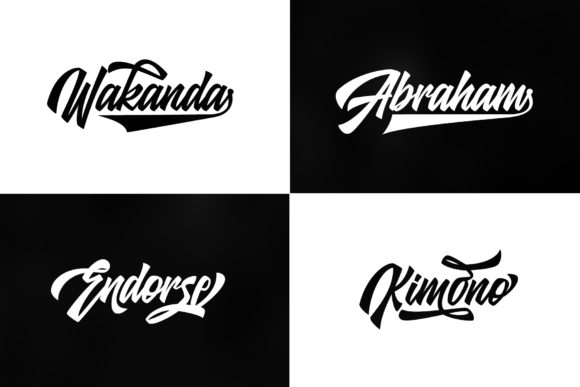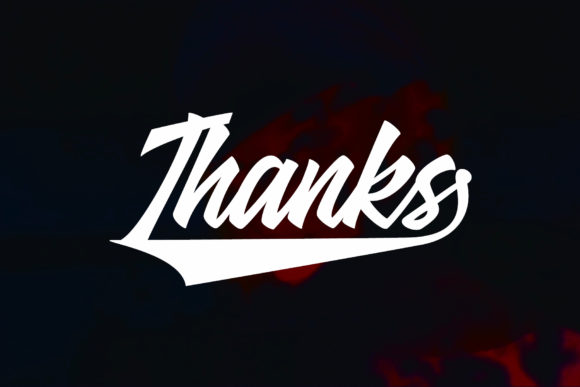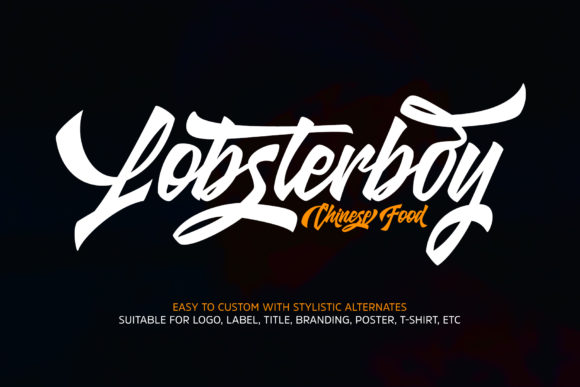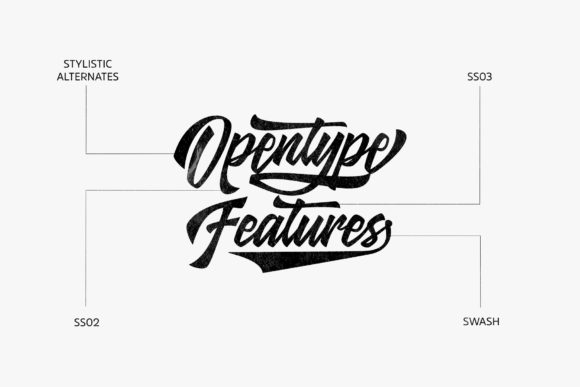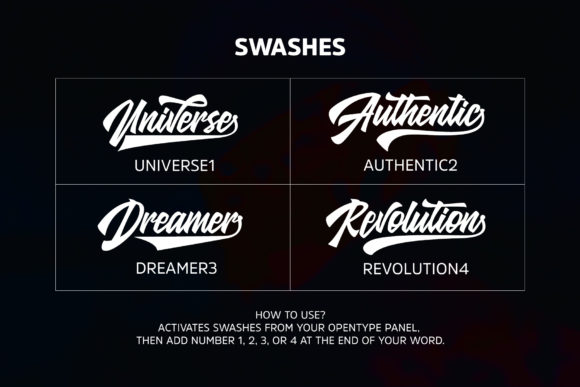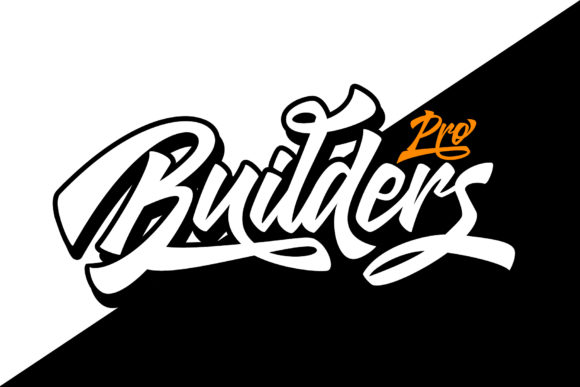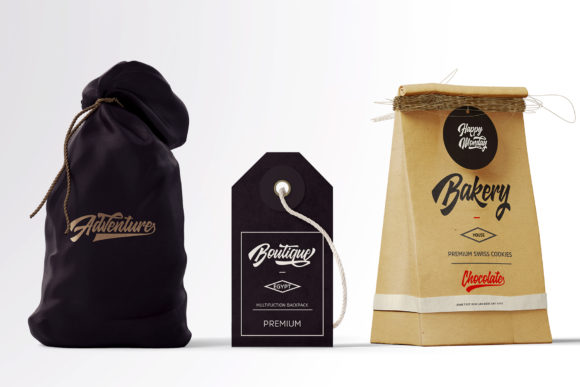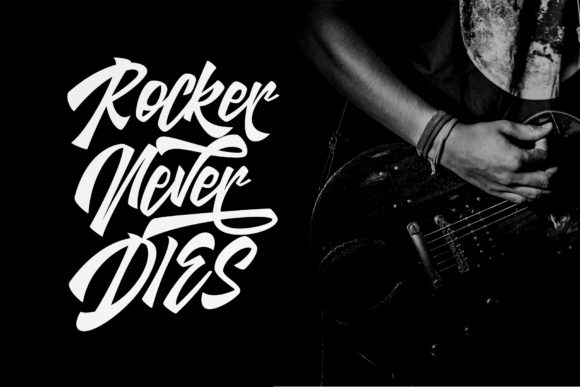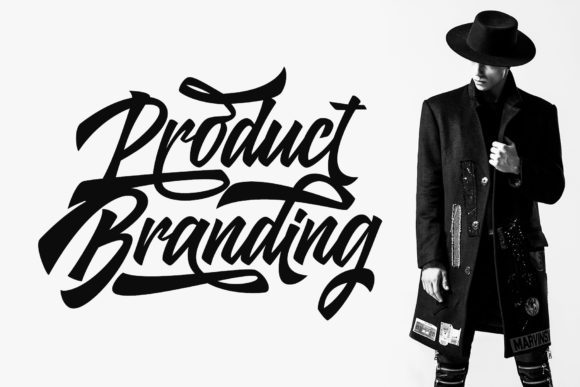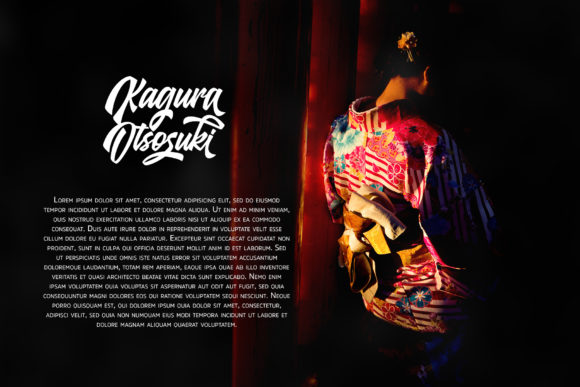
Glarious Font
About Glarious Font
Glarious is a fun and modern font with a unique urban feel. It’s a stand out font, and will turn any design project into an eye catcher!